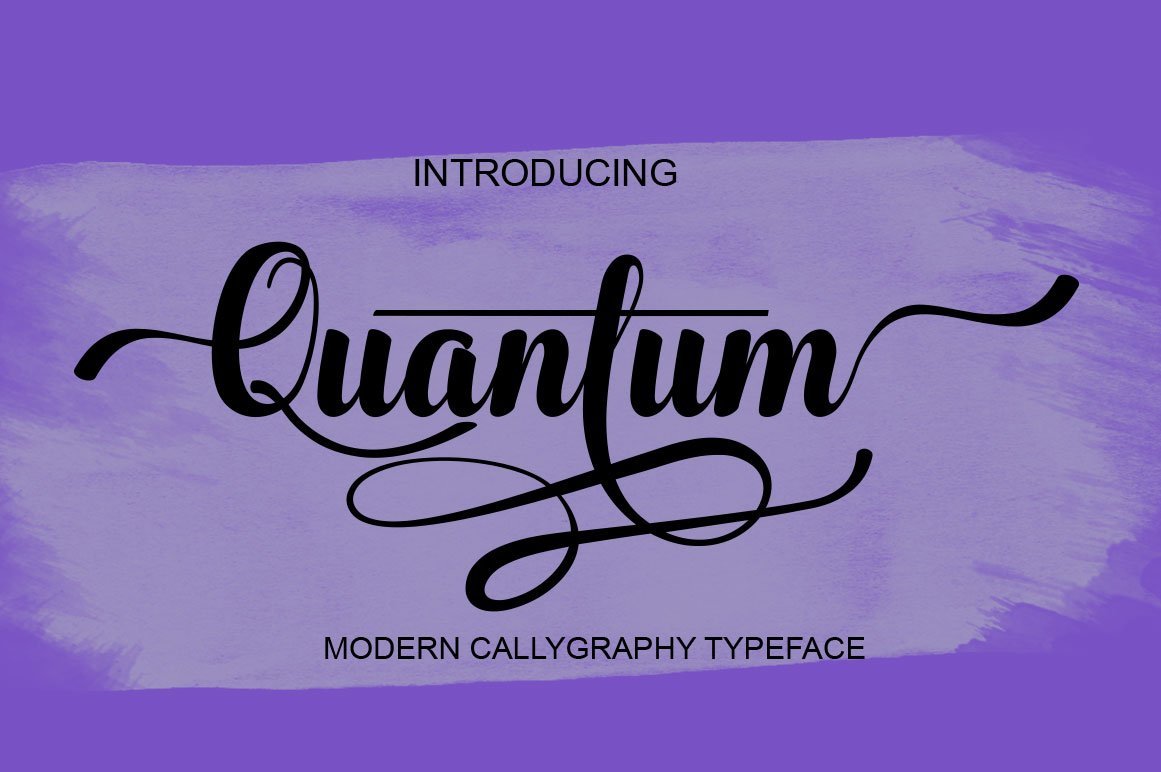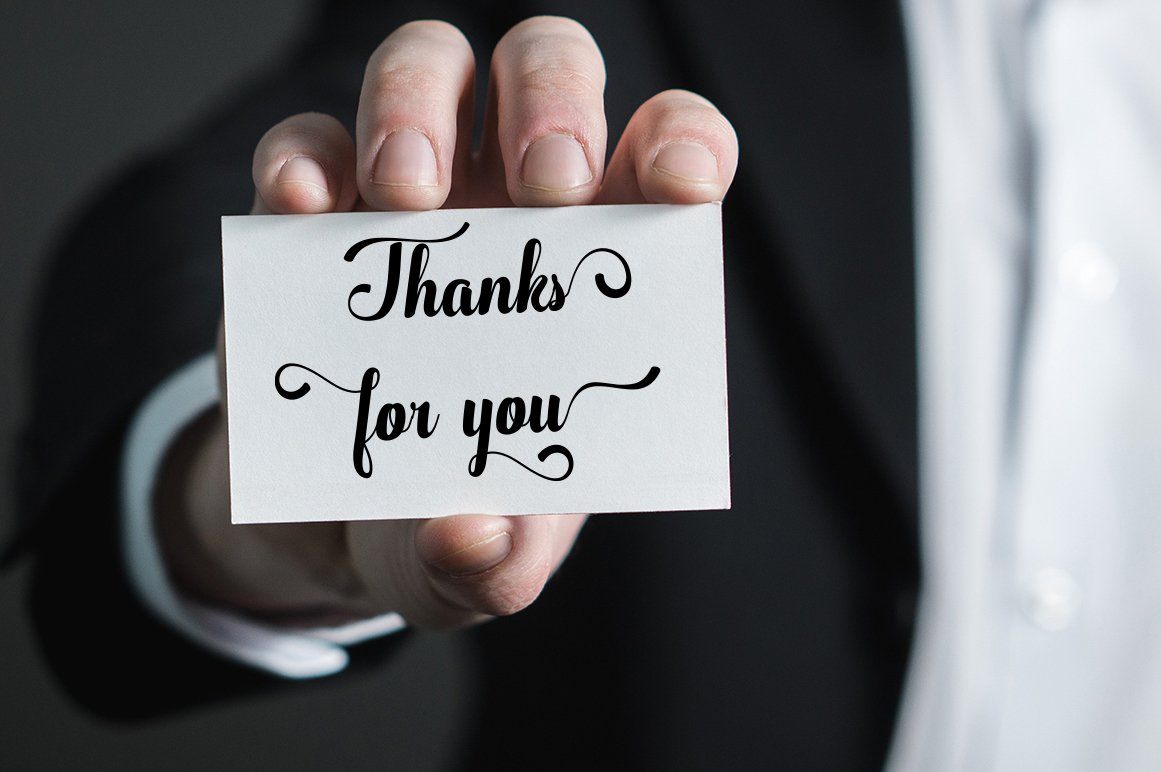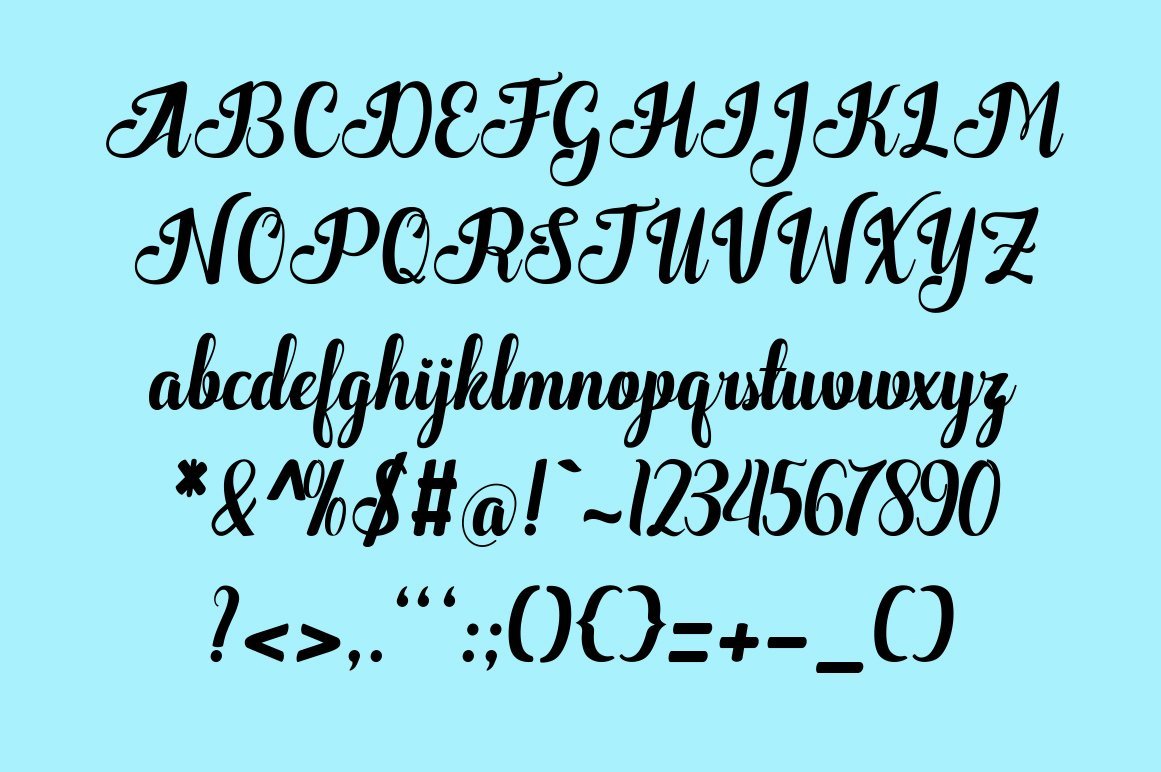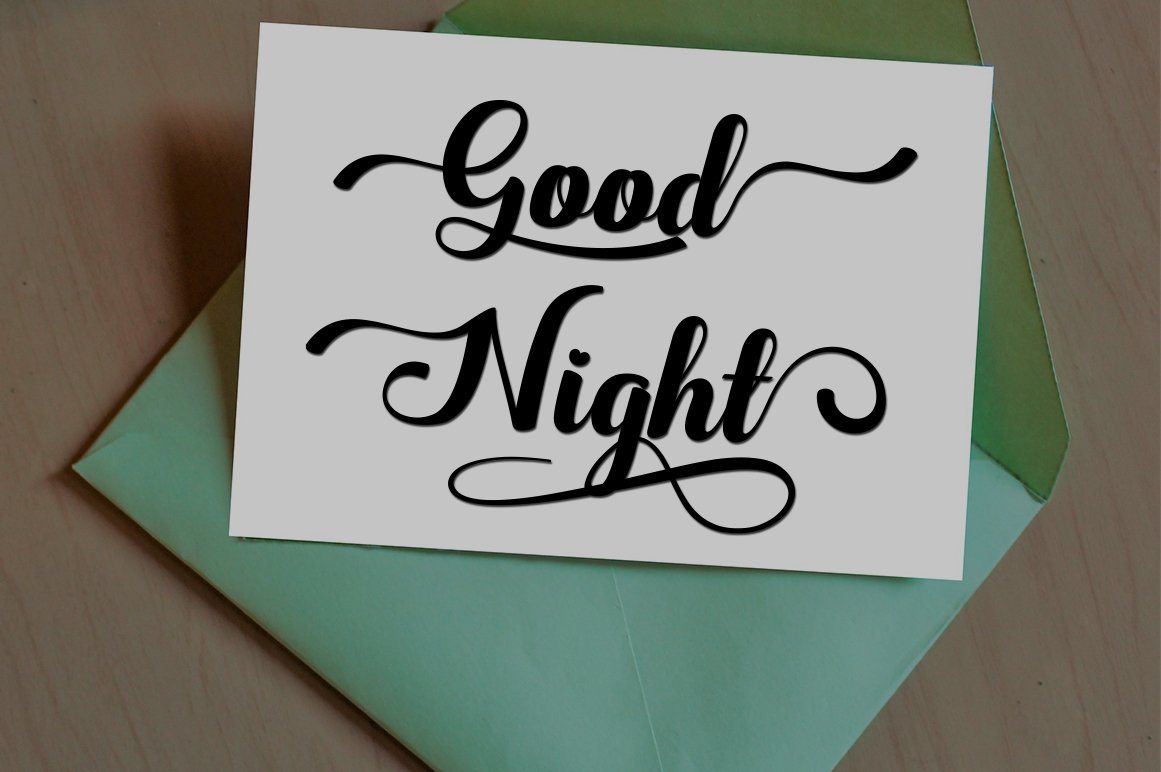
I Want To Introduce New Fonts Quantum Script New fresh & modern style with handmade calligraphy, decorative characters and dancing lineage! So wonderful are invitations like greeting cards, branding material, business cards, quotes, posters, and more !! Quantum Script The comes with 520 glyphs. Alternate characters are divided into several Open Type features such as Swash, Stylistic Sets, Stylistic Alternate, Contextual Alternate. Open Type features are accessible by using Open Type savvy programs such as Adobe Illustrator, Adobe InDesign, Adobe Photoshop Corel Draw X versions, and Microsoft Word. And this font has code PUA unicode (font with special code). So that all alternative characters can be easily accessed by craftsmen or designers. Uppercase & lowercase International signature & symbol Punctuation Support & PUA number Unicode Style Style Alternative Style Style Range 1-13 Contextual Character Variations. ZIP files include the following: Quantum.OTF Script Quantum.TTF Script If you do not have programs that support OpenType features like Adobe Illustrator and CorelDraw X Versions, you can access all alternative flying machines using Font Book (Mac) or Character Map (Windows) I Want To Introduce New Fonts Quantum Script New fresh & modern style with handmade calligraphy, decorative characters and dancing lineage! So wonderful are invitations like greeting cards, branding material, business cards, quotes, posters, and more !! Quantum Script The comes with 520 glyphs. Alternate characters are divided into several Open Type features such as Swash, Stylistic Sets, Stylistic Alternate, Contextual Alternate. Open Type features are accessible by using Open Type savvy programs such as Adobe Illustrator, Adobe InDesign, Adobe Photoshop Corel Draw X versions, and Microsoft Word. And this font has code PUA unicode (font with special code). So that all alternative characters can be easily accessed by craftsmen or designers. Uppercase & lowercase International signature & symbol Punctuation Support & PUA number Unicode Style Style Alternative Style Style Range 1-13 Contextual Character Variations. ZIP files include the following: If you do not have programs that support OpenType features like Adobe Illustrator and CorelDraw X Versions, you can access all alternative flying machines using Font Book (Mac) or Character Map (Windows)